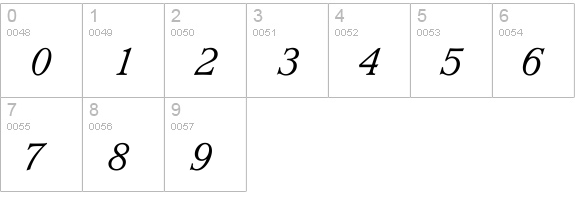
WaverlyLightItalic Font Details
WaverlyLightItalic is an elegant and sophisticated font that exudes a sense of grace and finesse. Its sleek and slanted letterforms create a beautiful fluidity, making it the perfect choice for projects that require a touch of elegance and sophistication. This font is characterized by its delicate and thin strokes, giving it a light and airy appearance. The italicized design adds a subtle twist, adding a touch of uniqueness to any design. The combination of its slender letterforms and italicized style creates a harmonious balance that is visually appealing and pleasant to the eye. WaverlyLightItalic is versatile and can be used across a variety of design projects, from branding and logo design to invitations and editorial layouts. Its refined and timeless design ensures that it will never go out of style, making it a valuable asset for any designer. The best part? WaverlyLightItalic is available for free download at FontsMarket.com. This means that you can freely access this stunning font and incorporate it into your designs without any cost. Whether you are a professional designer or a hobbyist, this font will elevate your creations and give them that extra touch of sophistication. Download WaverlyLightItalic today at FontsMarket.com and unleash your creativity with this beautiful and freely available font.